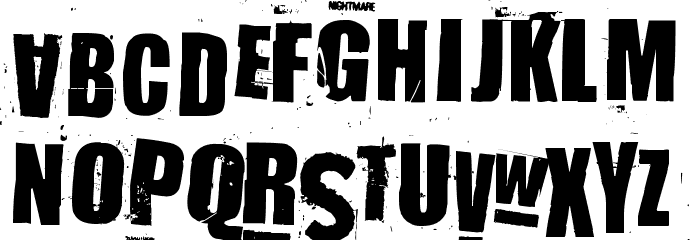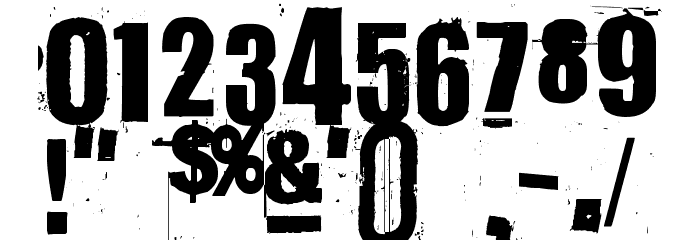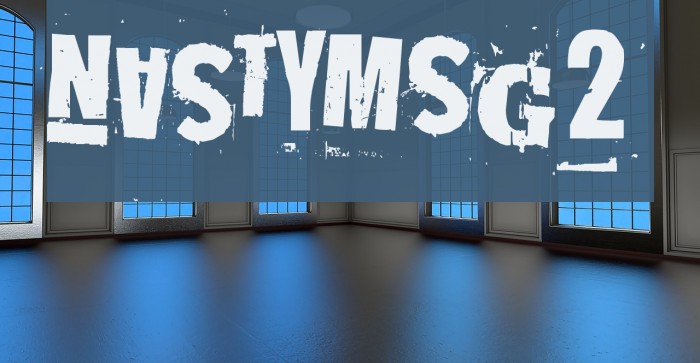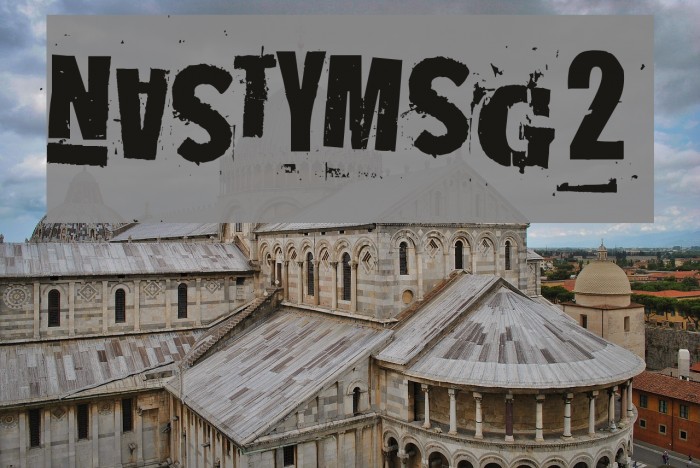
NastyMSG2 Font
This font exhibits a bold, distressed style with a grunge aesthetic. The characters are irregularly shaped, giving them a chaotic and edgy appearance. The uppercase and lowercase letters, as well as numbers and special characters, are all designed with a rough, textured look that suggests wear and tear. This font is reminiscent of a ransom note or a punk rock poster, with its uneven edges and varying stroke thicknesses. The overall effect is one of rebellion and nonconformity, making it ideal for projects that require a bold statement.
A bold, distressed font with a grunge aesthetic and chaotic appearance.
- Proposed Projects: Ideal for music posters, album covers, edgy branding, or any project needing a rebellious touch.
- Overall Style: Grunge, Edgy
- Use Case: Headlines, Posters, Branding